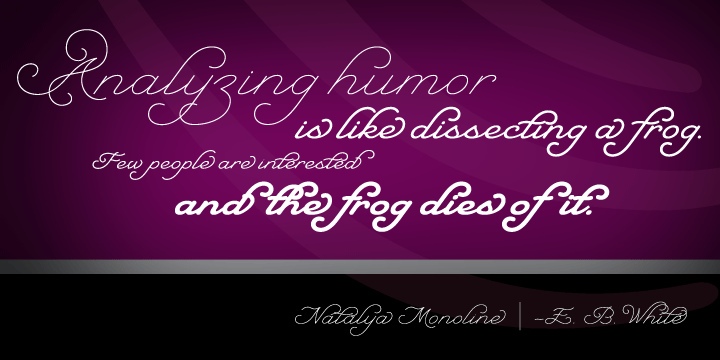
Natalya Monoline Font
Natalya Monoline Font is perfect for elegant feminine branding, sophisticated calligraphy projects, graceful wedding invitations, refined personal stationery, delicate beauty salon marketing, gentle lifestyle blogs, flowing script presentations, and sophisticated monoline communications.
What makes Natalya Monoline Font exciting is its monoline elegance that embodies fluid sophistication and graceful simplicity with feminine authenticity and refined character. The font features flowing letterforms with consistent stroke proportions and elegant character variations that evoke fine pen strokes, graceful calligraphy, and the sophisticated beauty of monoline script artistry and feminine elegance. Its distinctive monoline styling and elegant appeal communicate refinement, grace, and sophisticated femininity, making every message feel drawn with elegant precision and touched by the flowing beauty of monoline script artistry and graceful sophistication.
The Natalya Monoline Font family includes regular weight with uppercase and lowercase letters, numerals, punctuation marks, and special characters. Premium versions often feature stylistic alternates and elegant flourishes that enhance the sophisticated, monoline aesthetic perfect for feminine and elegant applications.
This graceful monoline typeface brings instant sophistication and elegant credibility to any refined project. Natalya Monoline Font Free Download offers exceptional value for elegant businesses and sophisticated service providers seeking to communicate monoline beauty, graceful elegance, and refined femininity to discerning audiences and sophisticated customers.
The refined character of Natalya Monoline Font makes it particularly valuable for calligraphy artists, elegant event planners, and sophisticated feminine brands. Its excellent readability ensures elegant messaging and refined communications remain clear while maintaining the distinctive monoline aesthetic that appeals to clients seeking sophisticated elegance and graceful monoline artistry.
Sophisticated design marketers appreciate how Natalya Monoline Font effortlessly conveys elegant authenticity and monoline sophistication. The font's flowing proportions and refined details create beautiful brand materials that establish connections with audiences who value graceful elegance, sophisticated design, and the flowing beauty of monoline script artistry and elegant feminine expression.
The versatile elegance of this typeface extends to sophisticated design services, elegant consulting, and refined lifestyle brands where monoline authenticity enhances sophisticated credibility and elegant appeal. Natalya Monoline Font Free Download provides creative professionals with an essential tool for developing memorable, elegance-driven designs that resonate with audiences who embrace sophisticated femininity, graceful design, and the flowing precision of monoline elegance in their refined and sophisticated experiences.